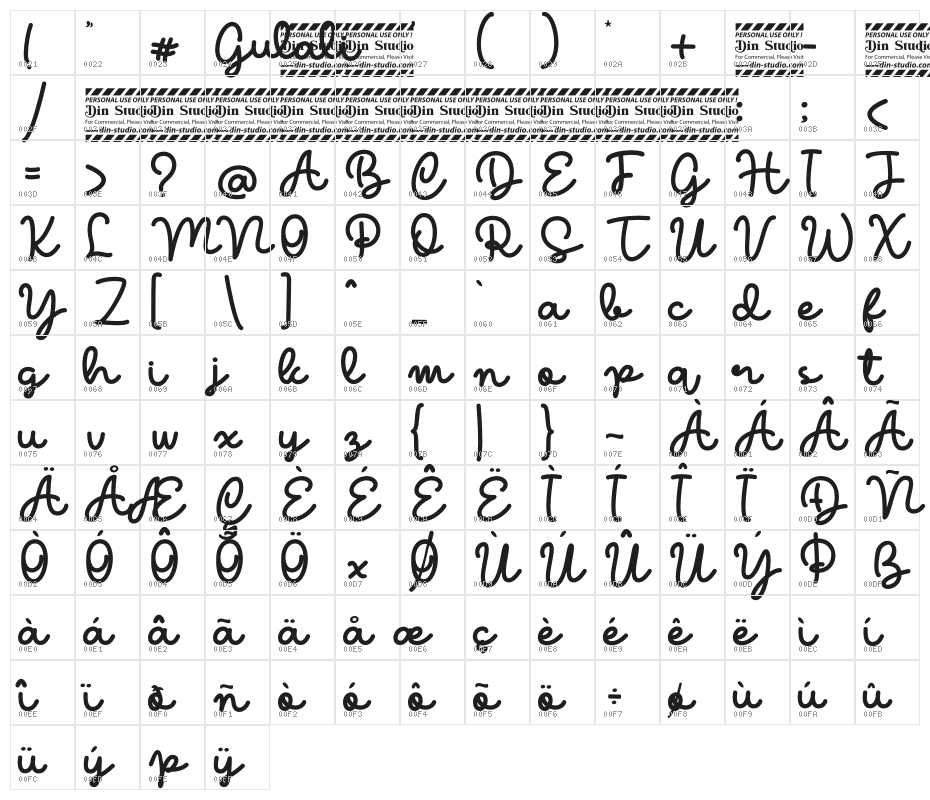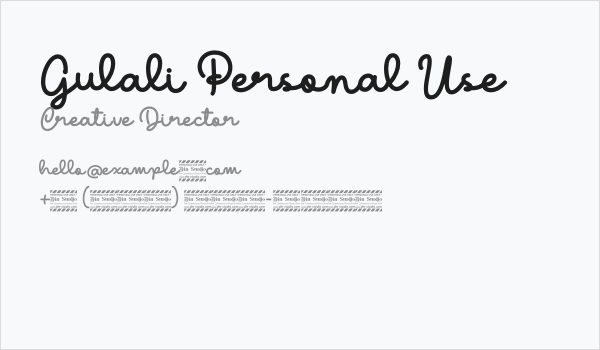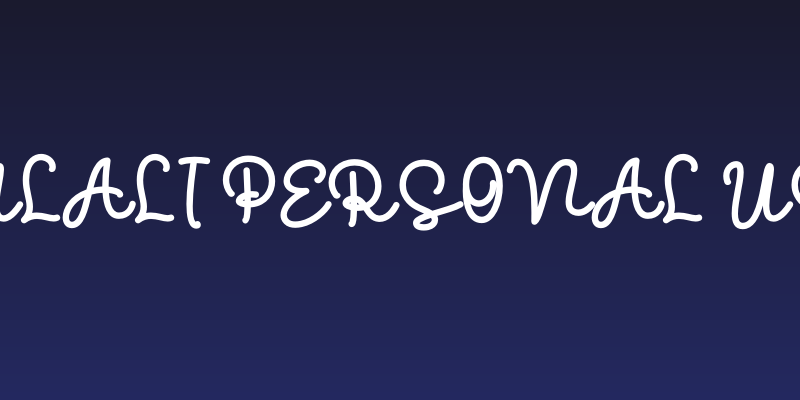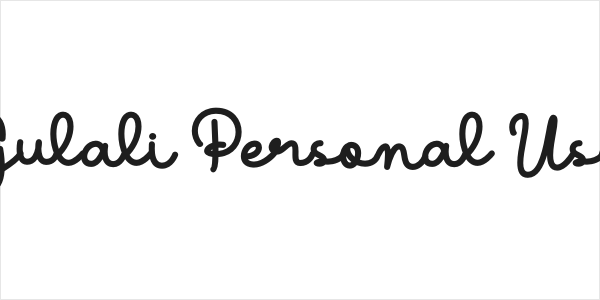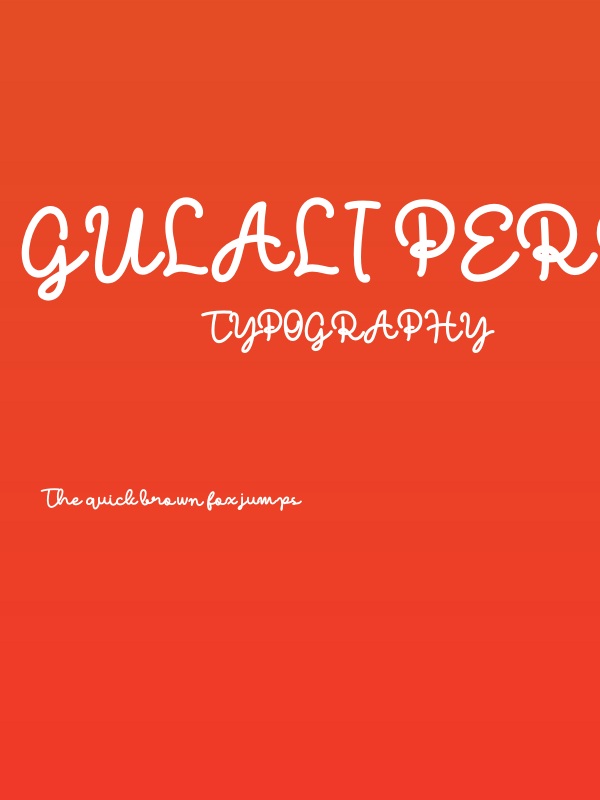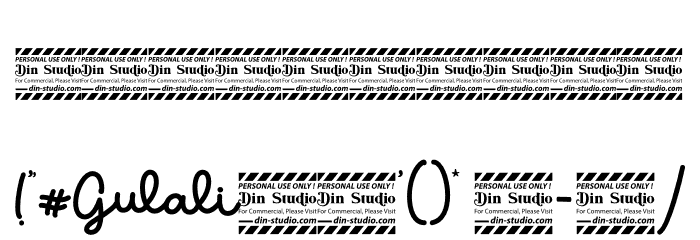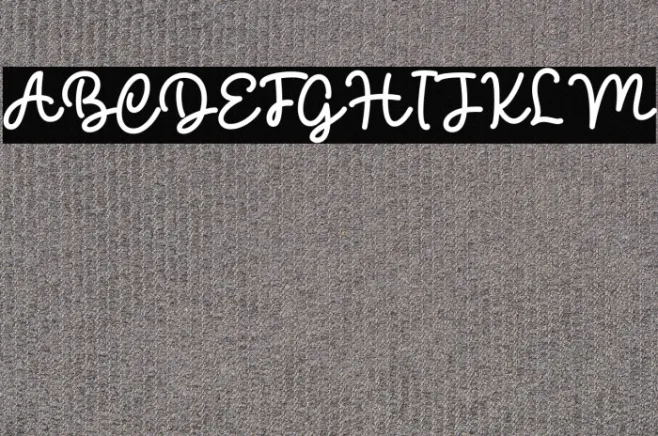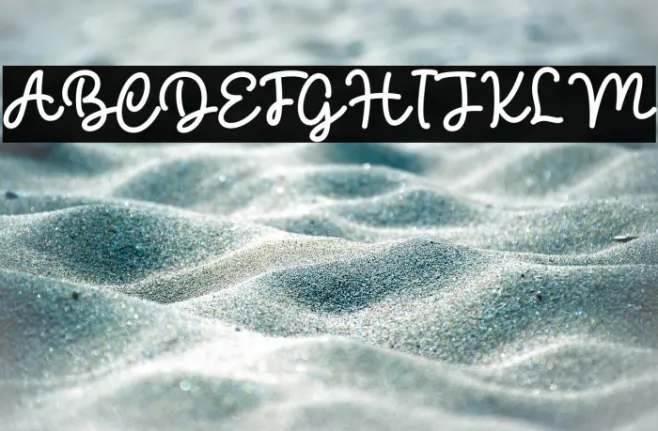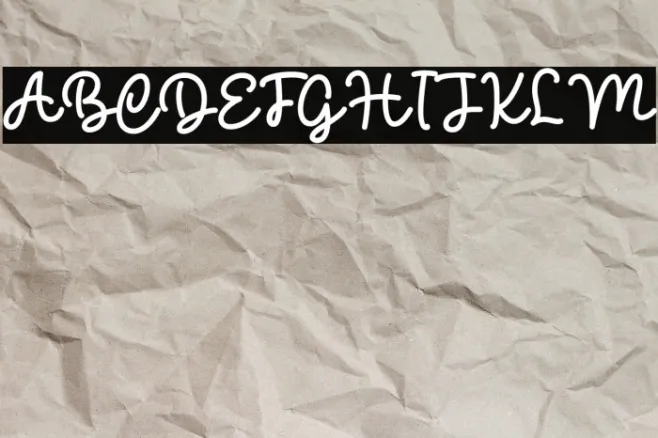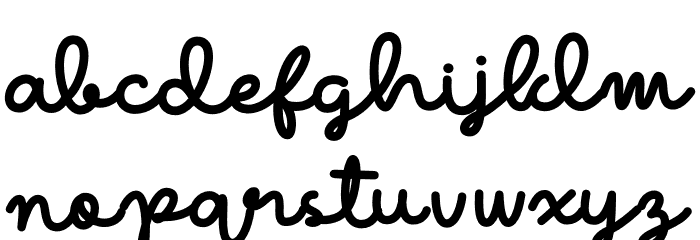
Gulali Personal Use Font
Gulali Personal Use Description
This font features a playful and flowing script style, characterized by its smooth, connected strokes and rounded edges. The uppercase letters maintain a consistent height, while the lowercase letters exhibit a charming bounce, adding a whimsical touch. The font's casual elegance is enhanced by its moderate contrast in stroke thickness, giving it a lively yet readable appearance. The special characters and numerals are designed to match the overall script style, ensuring a cohesive look across all text elements.
| Use Case | Logos, Invitations, Social Media Graphics |
| Proposed Projects | Ideal for greeting cards, invitations, branding, and social media graphics where a personal and friendly touch is desired. |